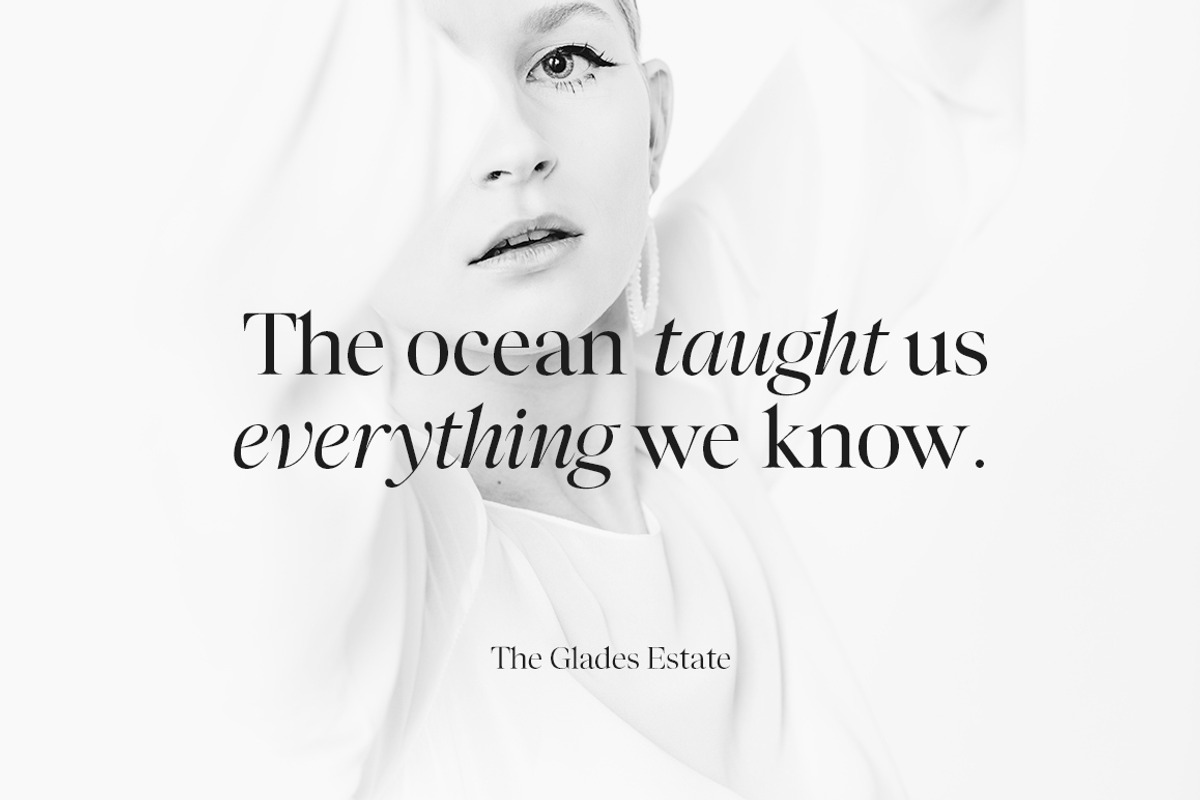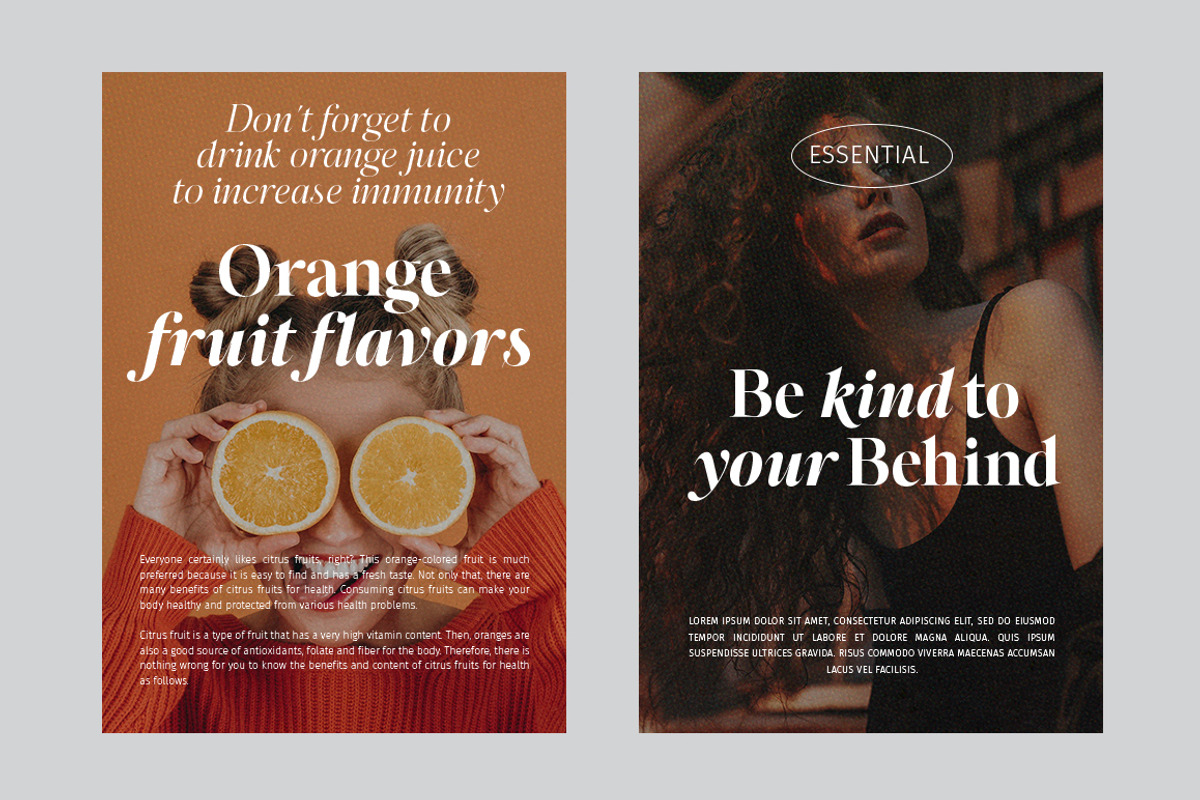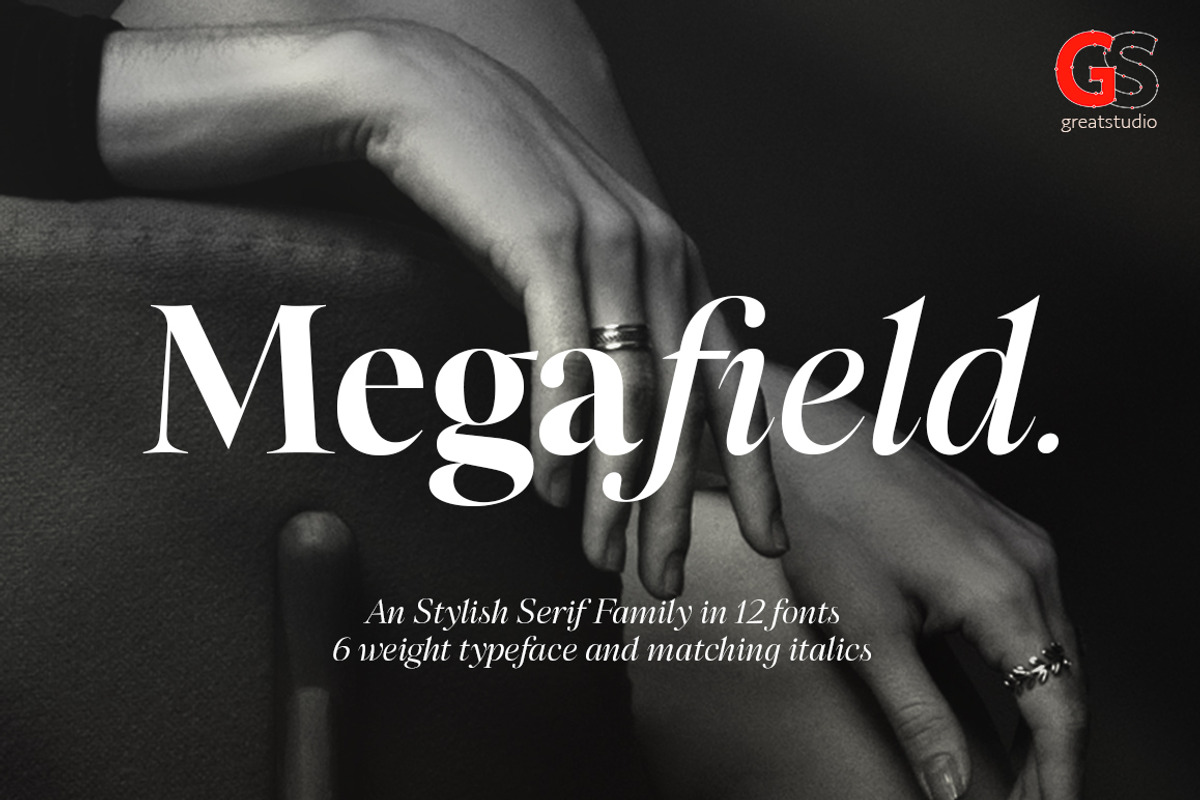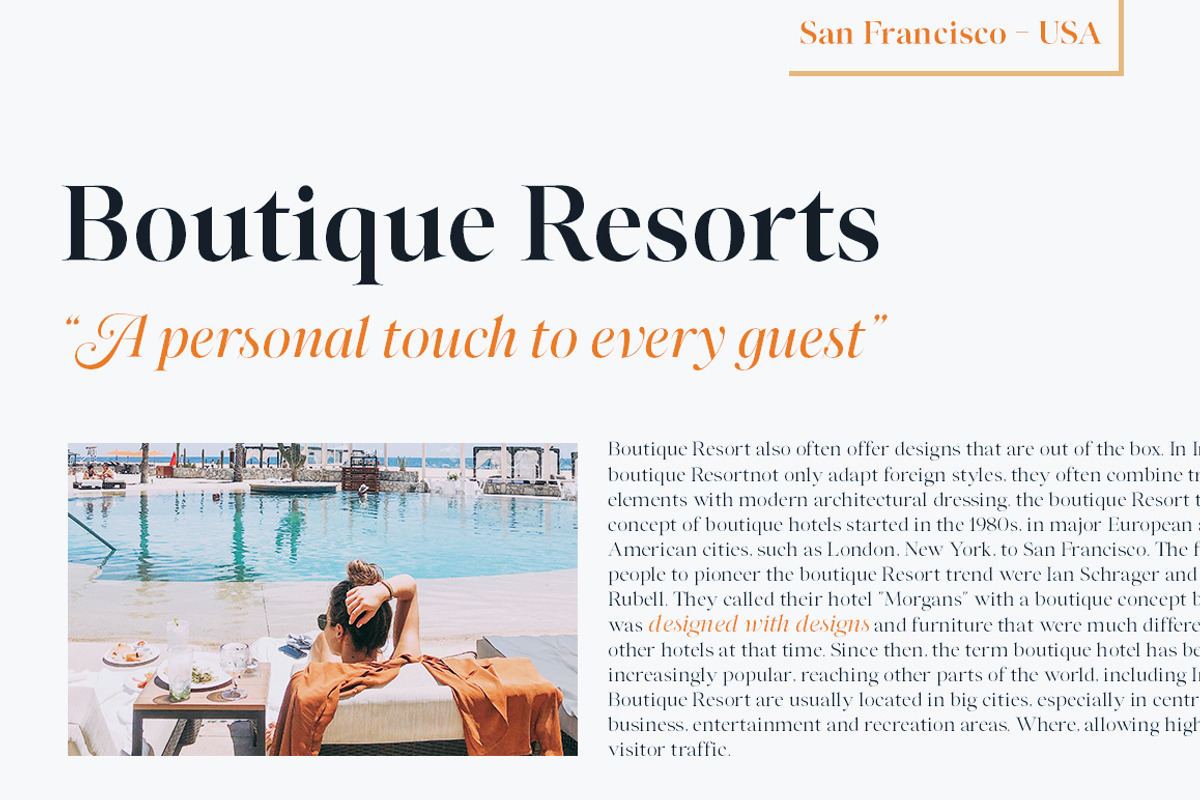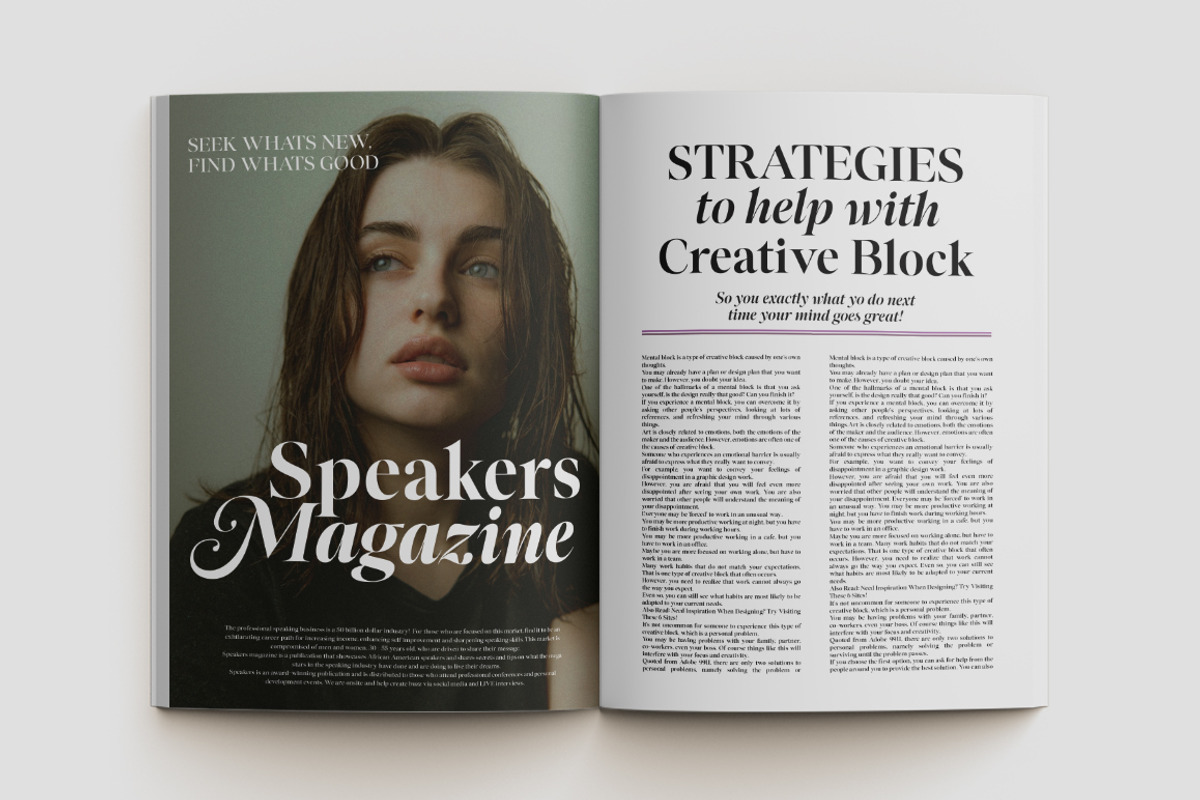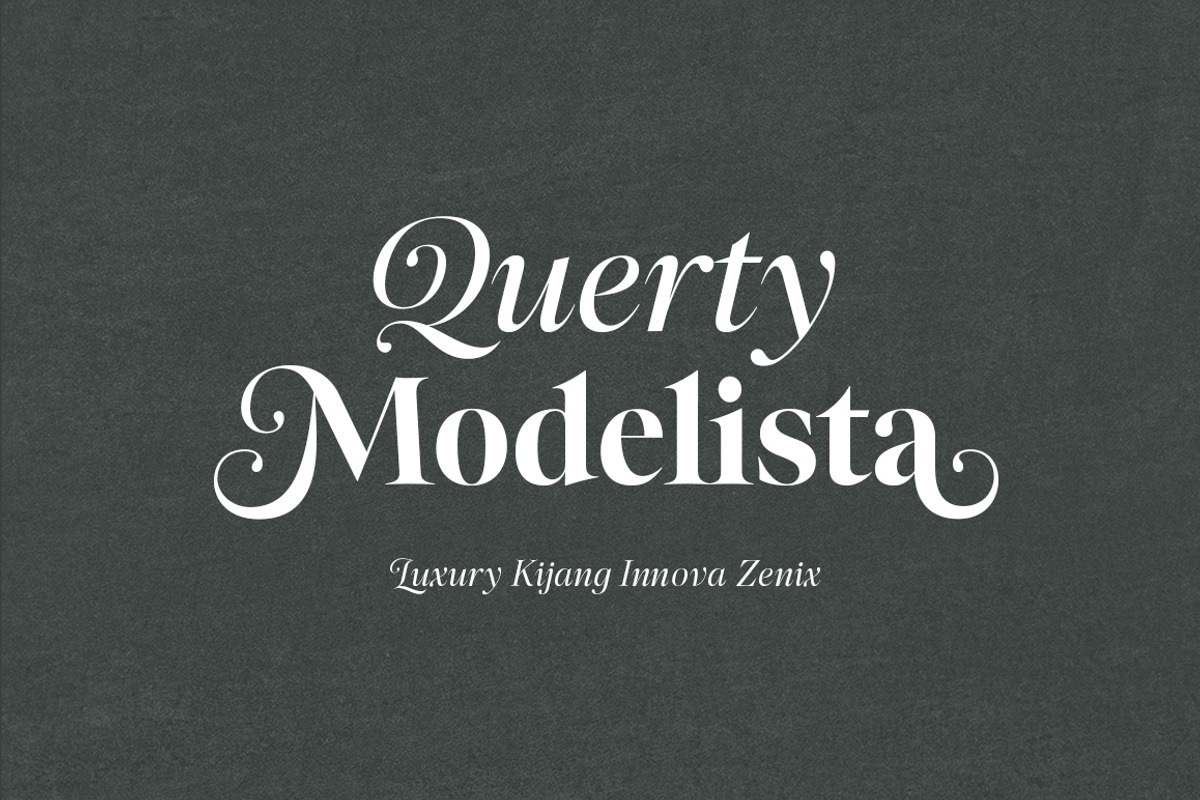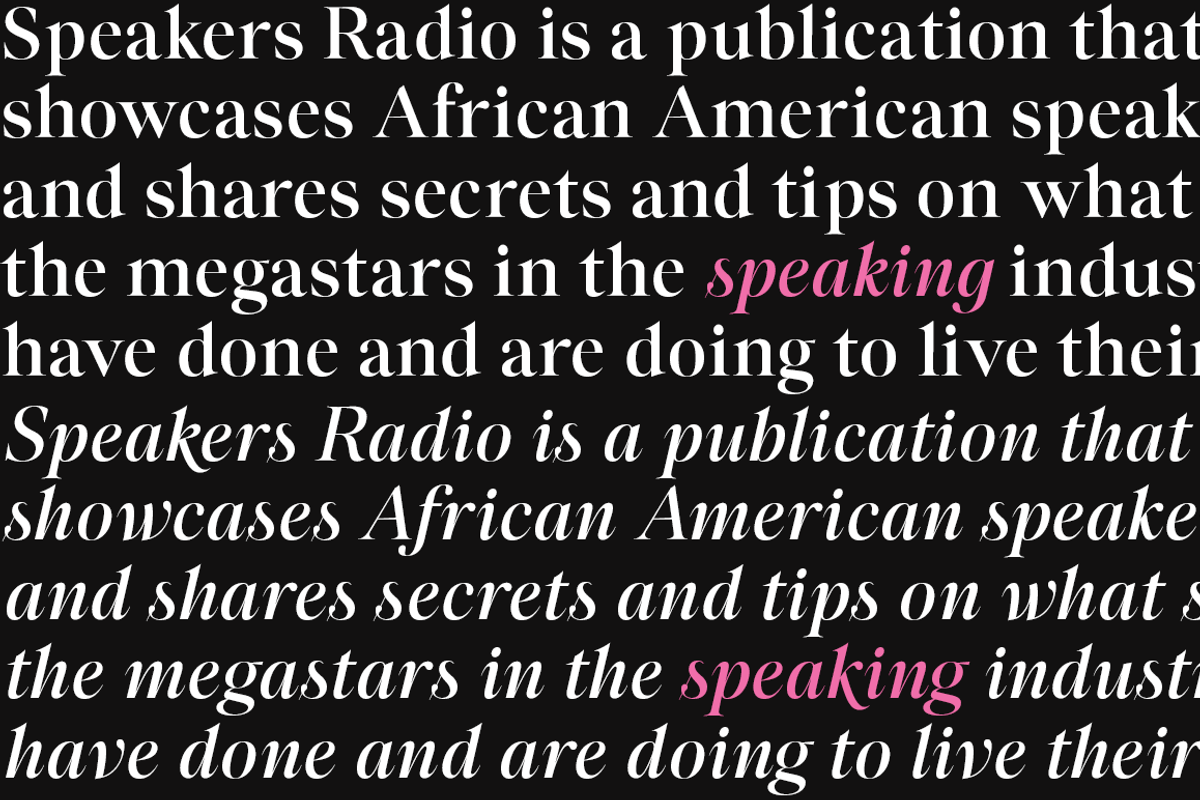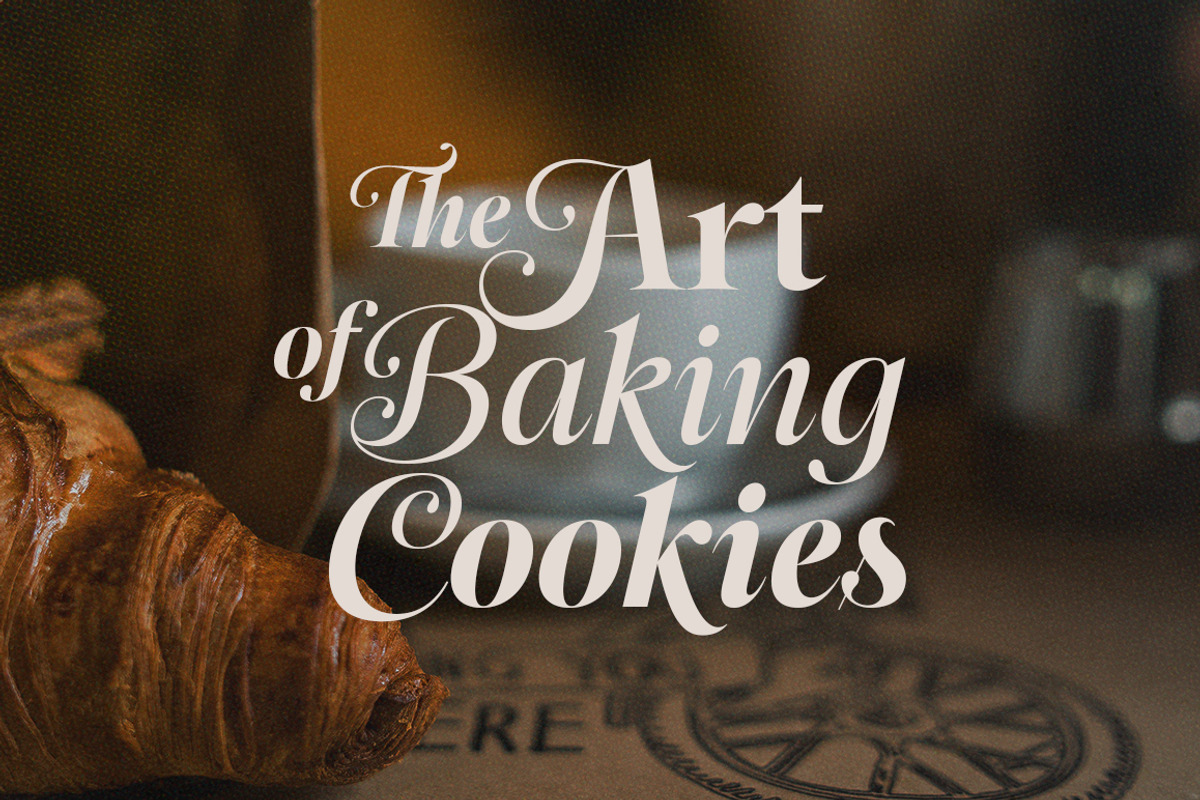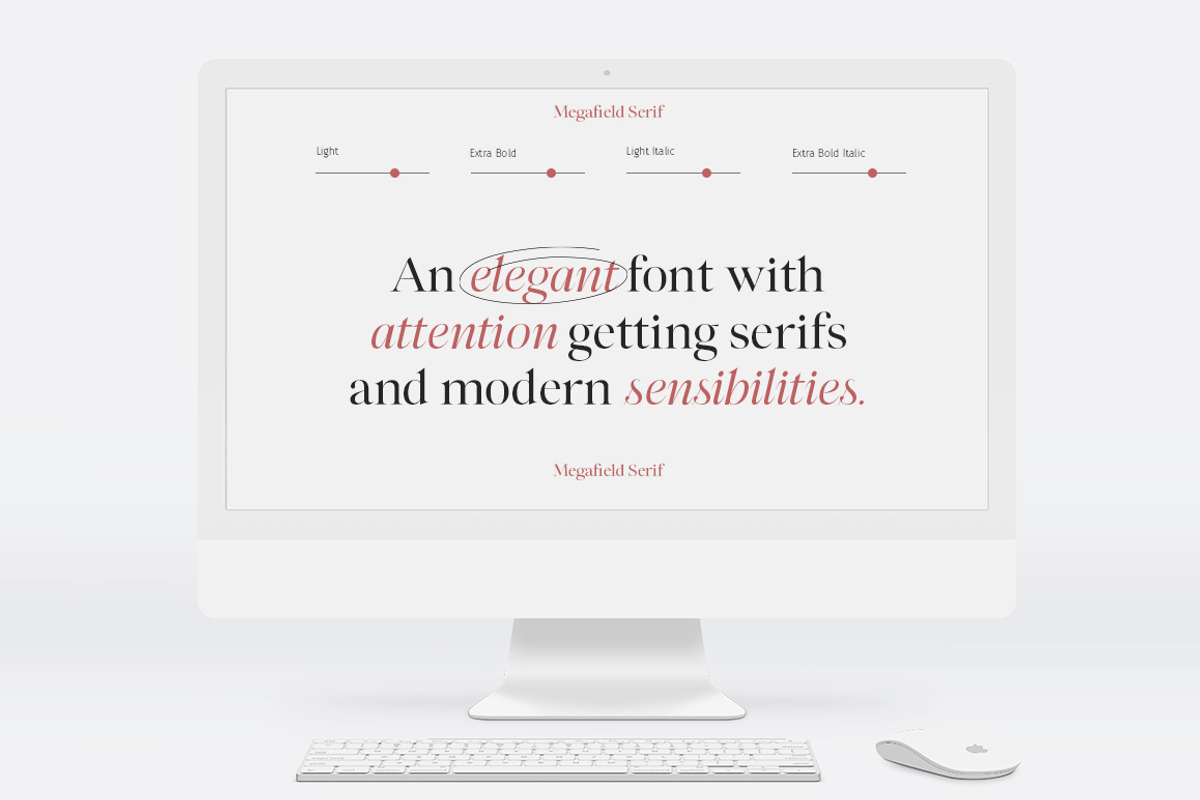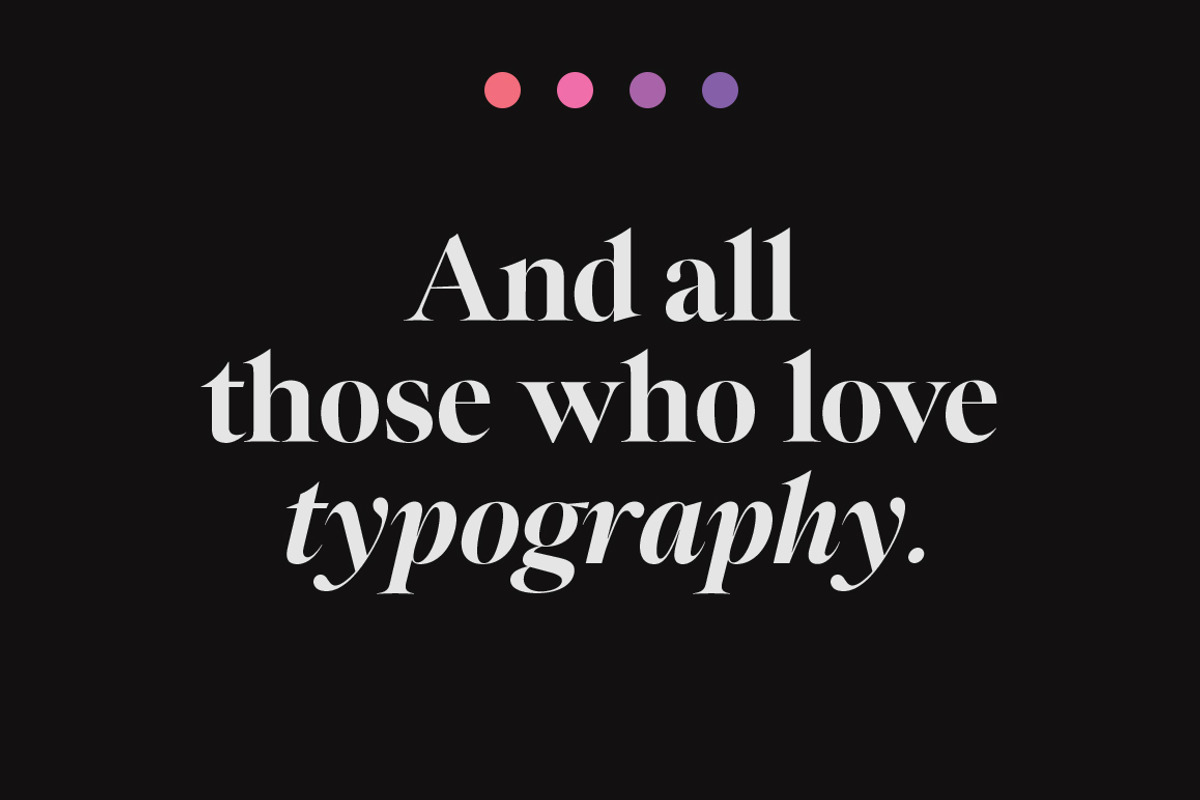
Megafield Serif Family | 12 Fonts
Megafield is a contemporary display serif typeface with sharp and dynamic strokes, strong contrast and delicate pointed serifs. giving traditional serif design elements a modern feel, it’s a graceful and confident typeface family with an extensive set of functional and experimental glyphs.
Megafield family has 12 fonts, namely (6 weights and 6 Italics, ranging from Light to Extra Bold. These fonts are perfect for your design needs such as making nostalgic but still clean and elegant designs such as headlines, magazines, logos, packaging, editorials, and more.
- All Uppercase and Lowercase
- Supported Languages
- Alternates and Ligatures